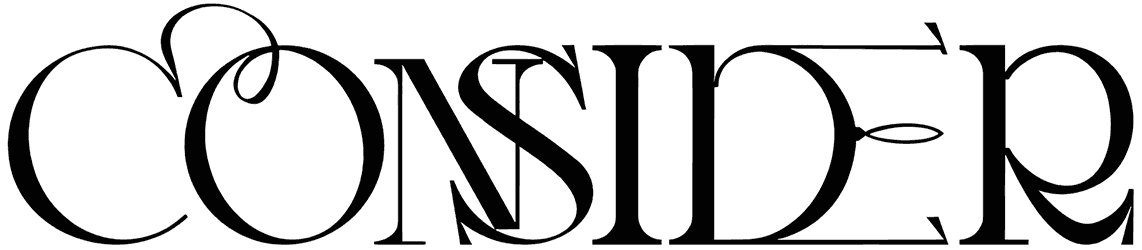
Consider Font
Some fonts are designed to grab attention instantly. Consider takes a different approach; it earns attention through personality. Inspired by retro aesthetics and vintage display typography, the font carries a nostalgic energy that feels both familiar and fresh. The bold shapes, expressive curves, and classic proportions give headlines a distinctive character without feeling overly decorative.
Whether you’re creating packaging, apparel graphics, café branding, posters, album artwork, merchandise, or social media content, this typography font helps inject a sense of warmth and individuality into the design. It feels handcrafted, confident, and full of visual charm. Sometimes the most memorable typography isn’t the loudest; it’s the one that makes people pause for a second look.